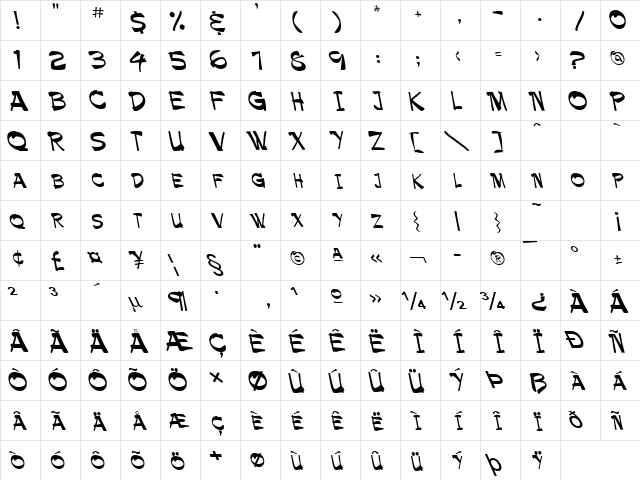
Palamino Reverse Italic
Design Context for Palamino Reverse Typeface
Palamino Reverse is a composed and adaptable typeface that performs quietly and consistently across a wide range of design contexts. The slanted form adds forward momentum and visual energy.
Pro Tip: Try Palamino Reverse for annotation and caption copy alongside an upright companion — the contrast in angle creates a dynamic but ordered typographic system.